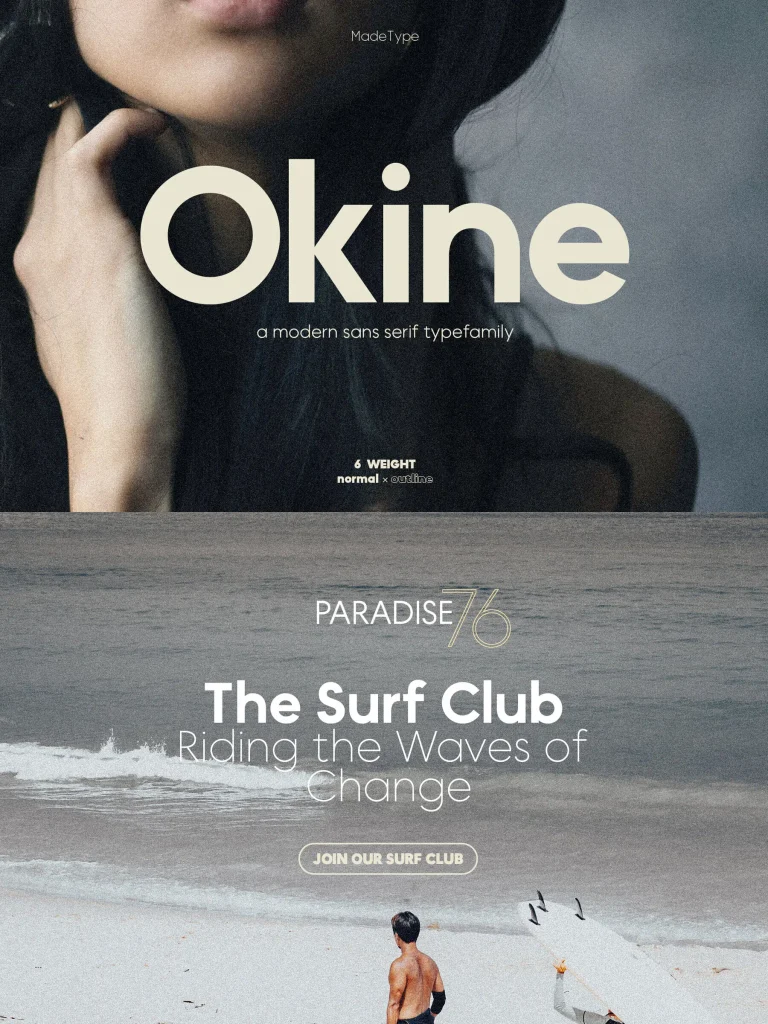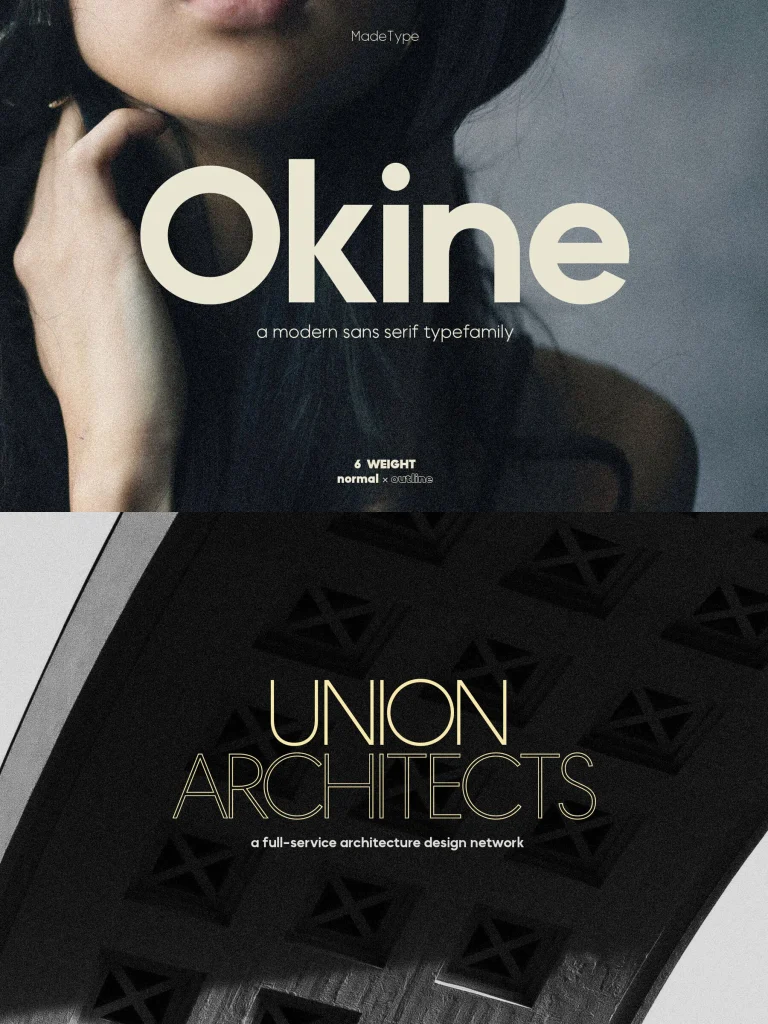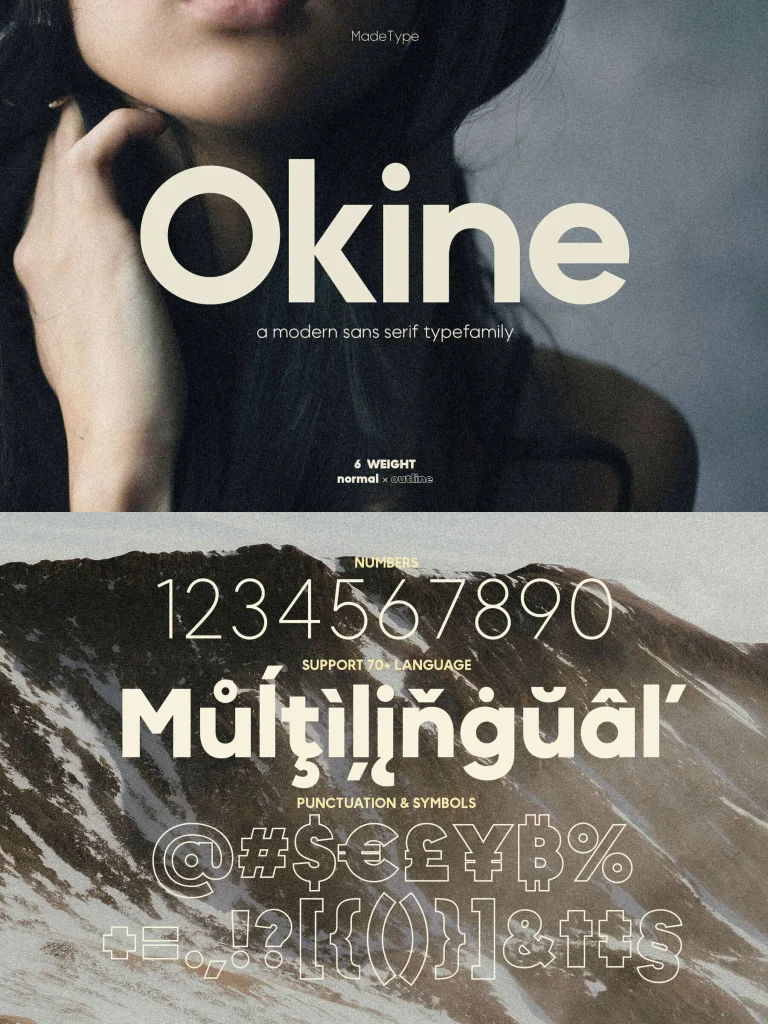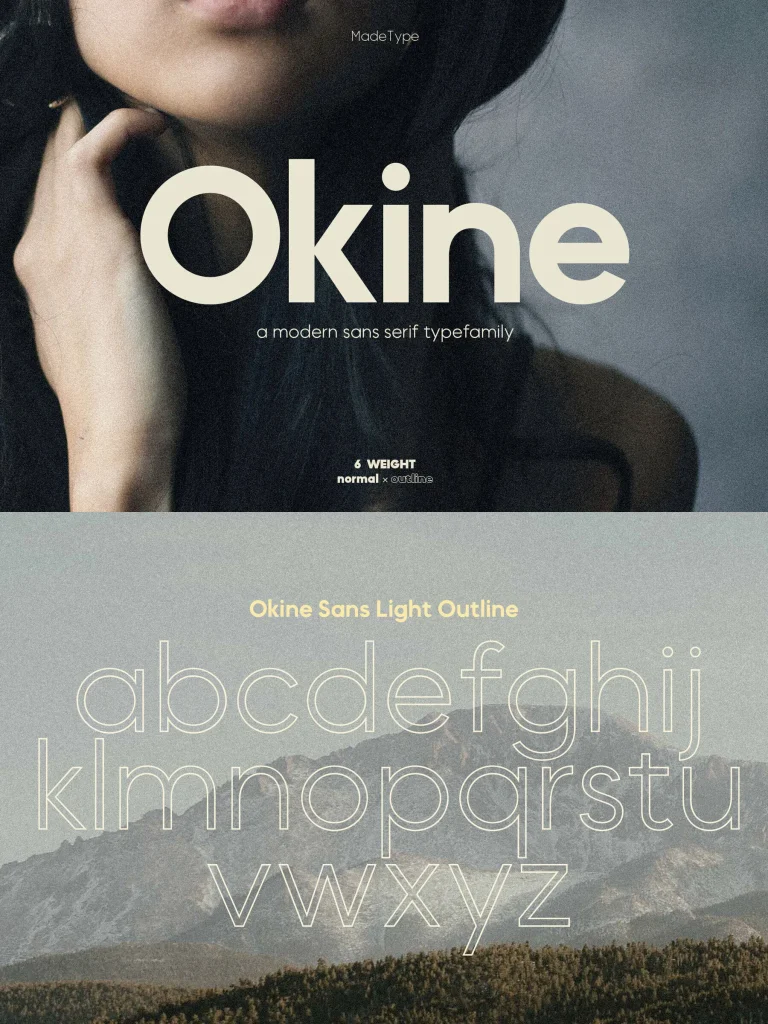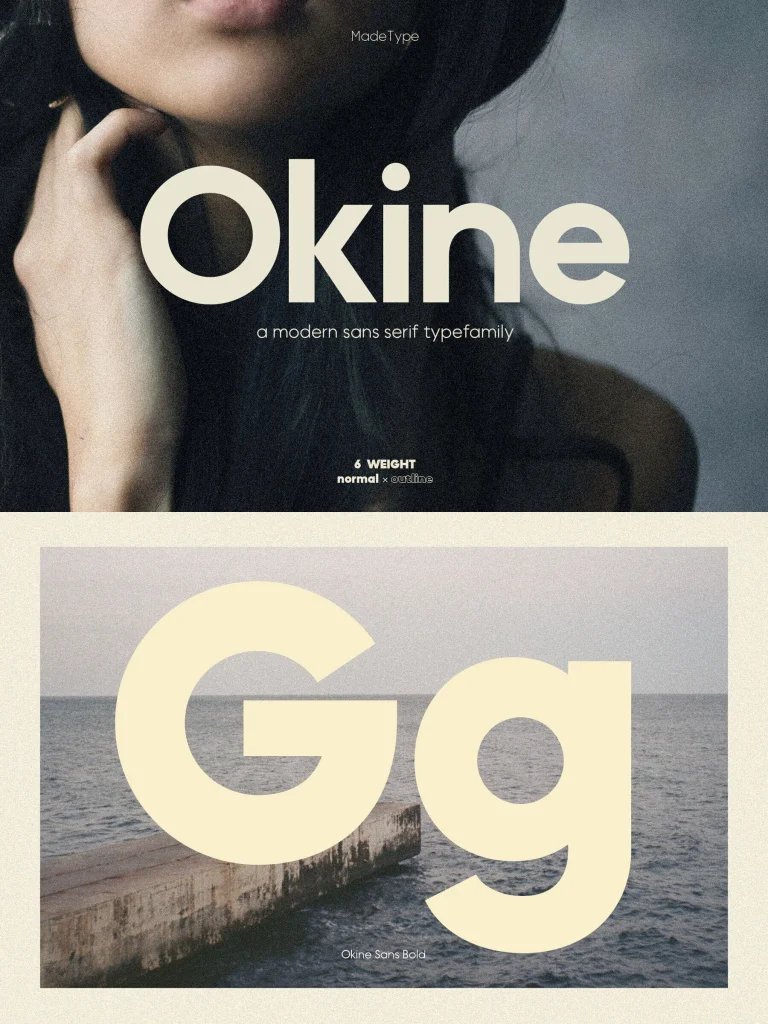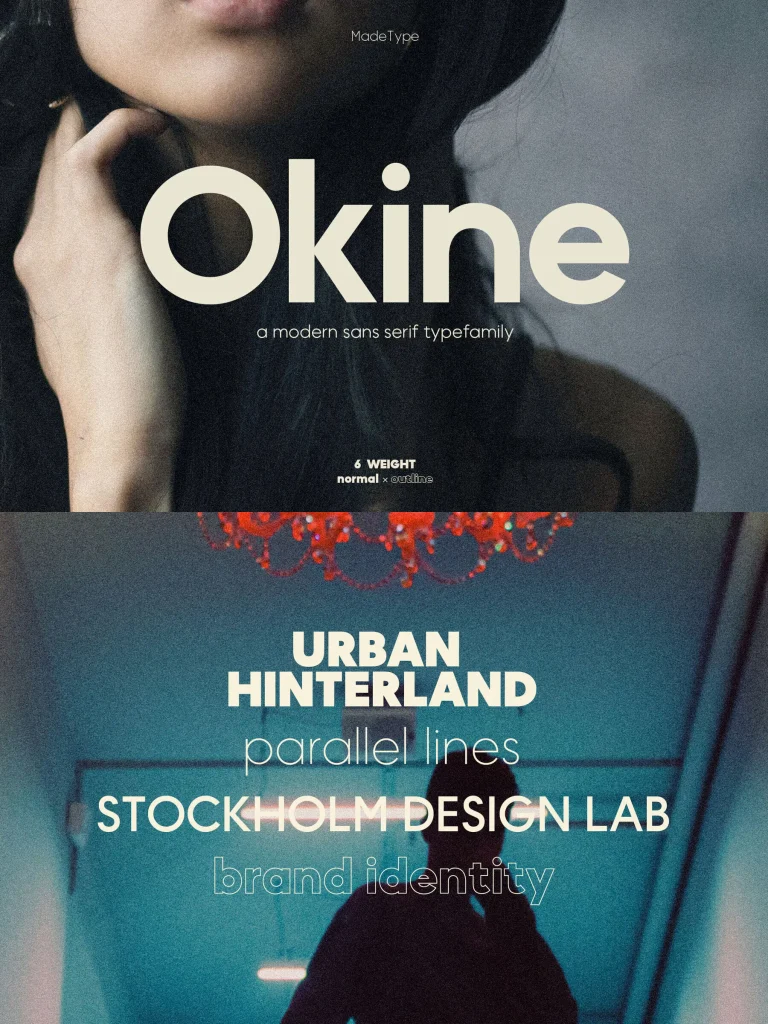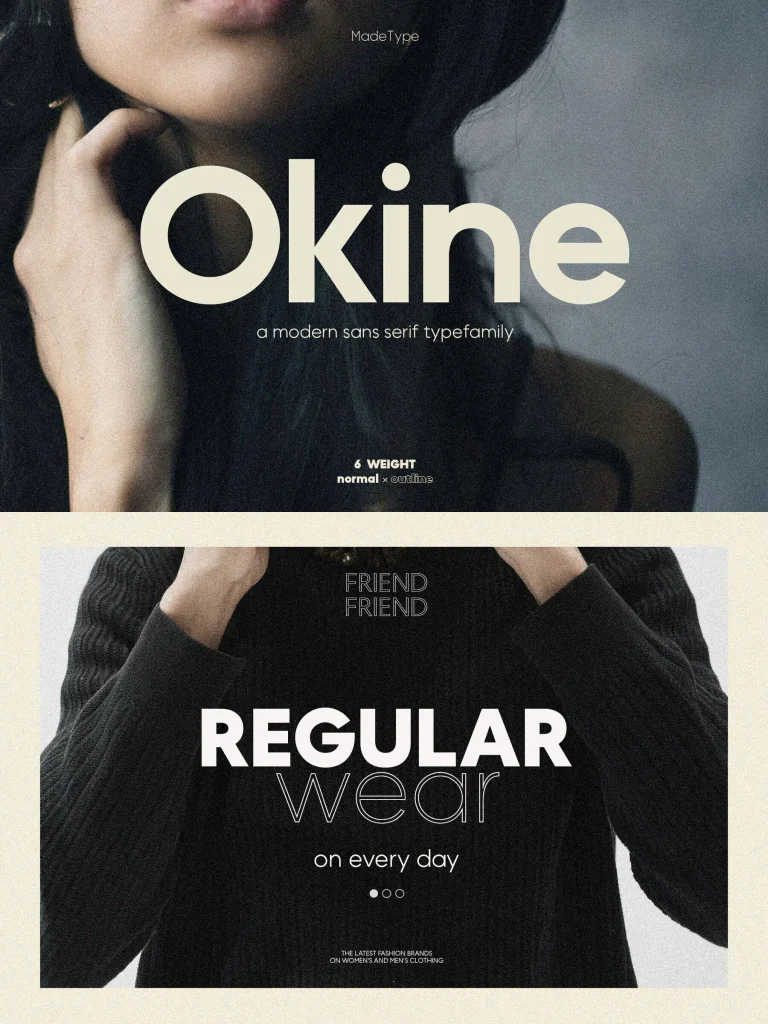
MADE Okine Sans: A Contemporary Sans Serif Typeface
MADE Okine Sans stands out as a modern sans serif type family designed to meet the diverse demands of contemporary graphic design. Its clean lines and refined structure make it a perfect fit for brands looking to convey a sense of modernity and professionalism.
Features:
Clean and Modern Aesthetic
– Offers a fresh and uncluttered look ideal for current design trends.
Versatile Use
– Suitable for a wide range of applications, from digital interfaces to print media.
Comprehensive Family
– Includes various weights and styles for flexible design possibilities.
If you’re aiming to enhance your branding with a typeface that exudes clarity and sophistication, MADE Okine Sans is a worthwhile consideration.